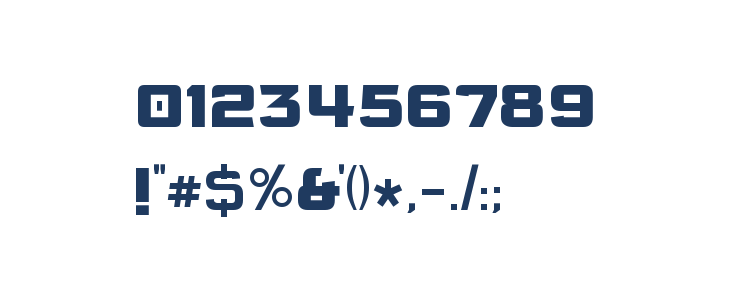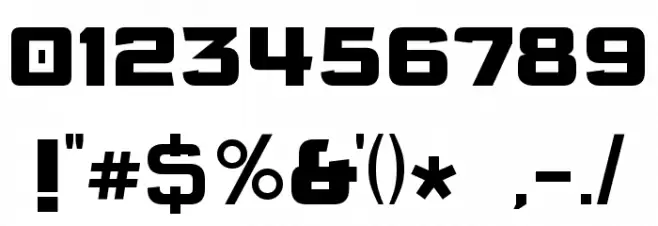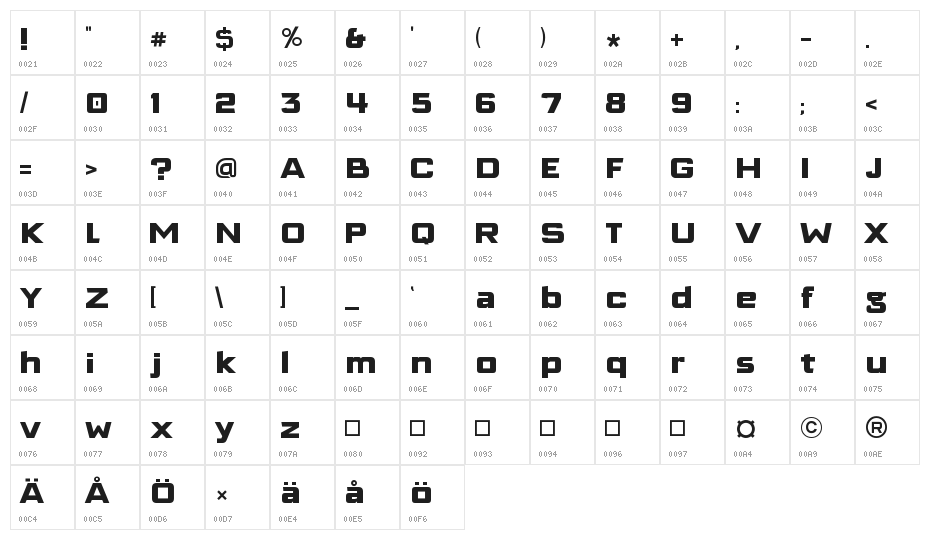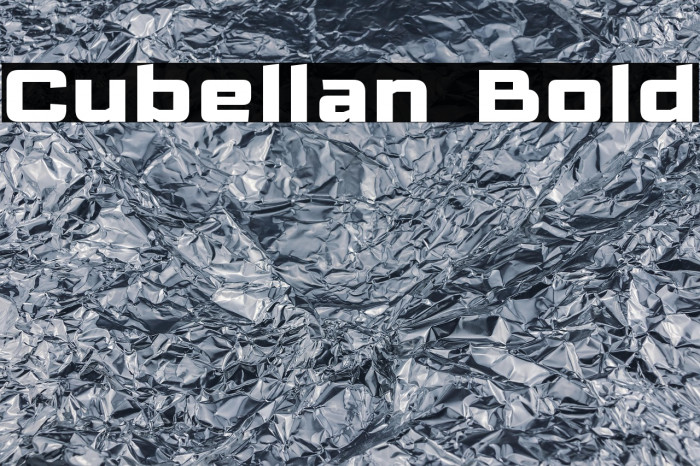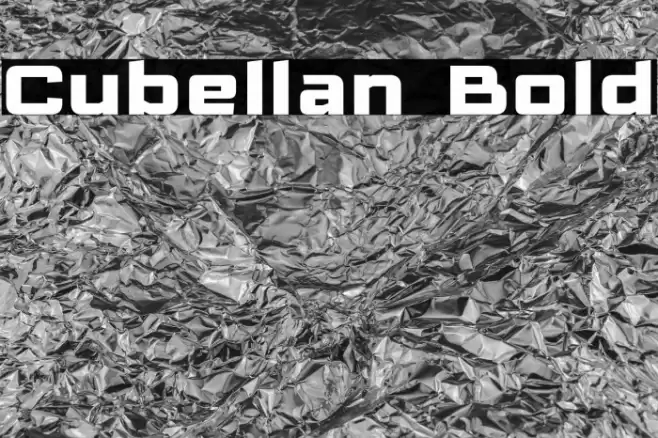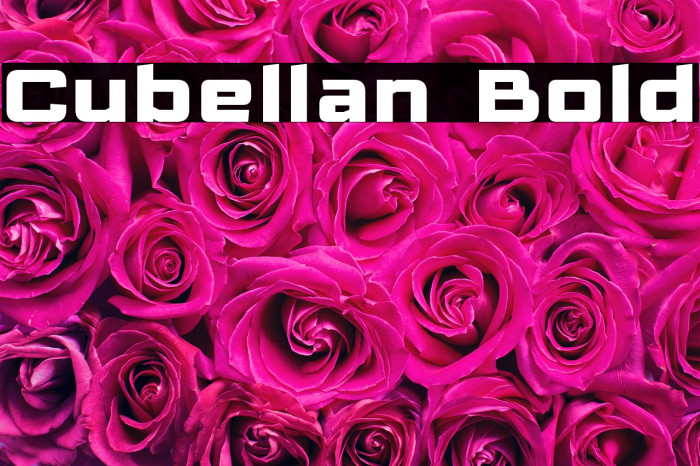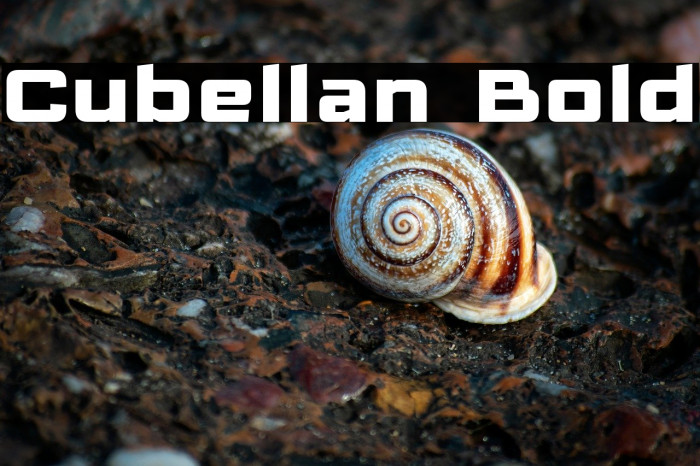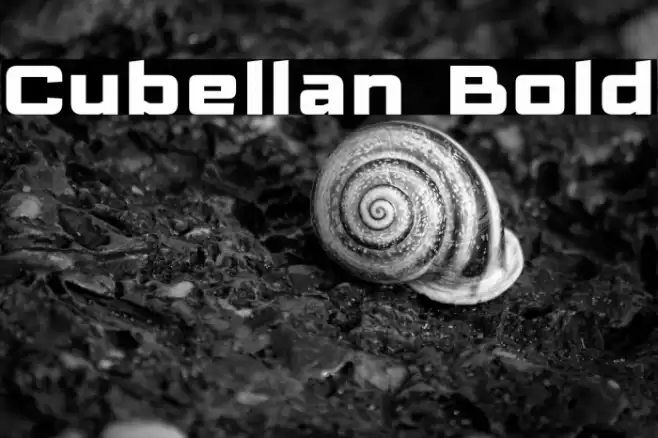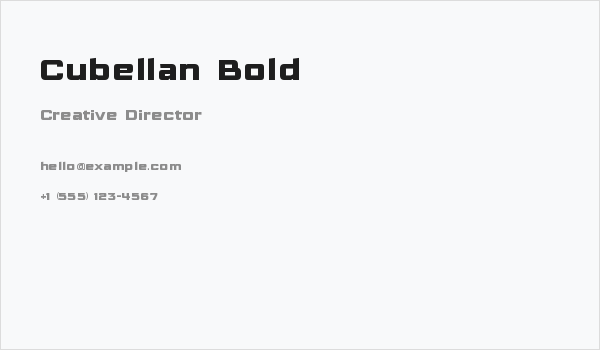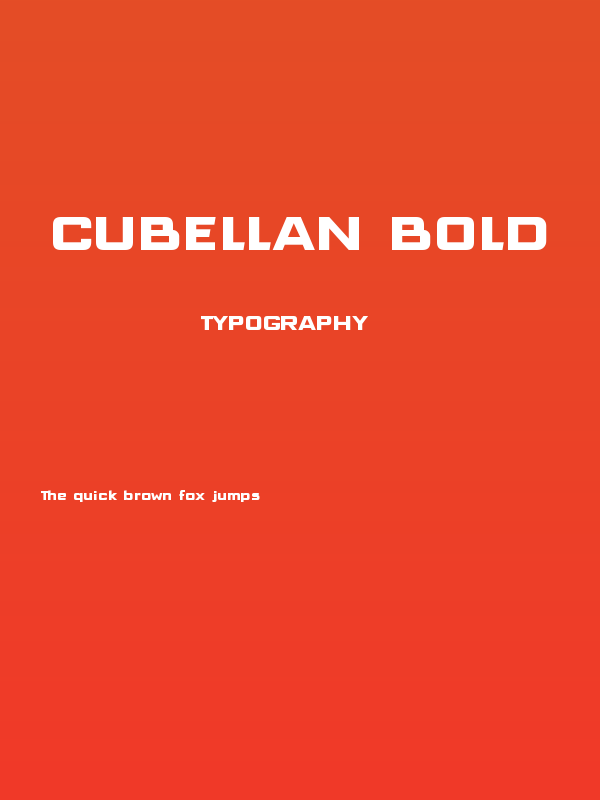
Cubellan Bold Font
Cubellan Bold Description
This font features a bold and assertive design with strong geometric shapes and clean lines. The uppercase letters are particularly striking, with a blocky and robust appearance that conveys strength and modernity. The lowercase letters maintain the boldness while offering a slightly softer edge, making the font versatile for various applications. The numerals are consistent with the overall bold style, ensuring readability and impact. Special characters are well-integrated, maintaining the font's cohesive look. The overall design is modern and suitable for projects that require a strong visual presence.